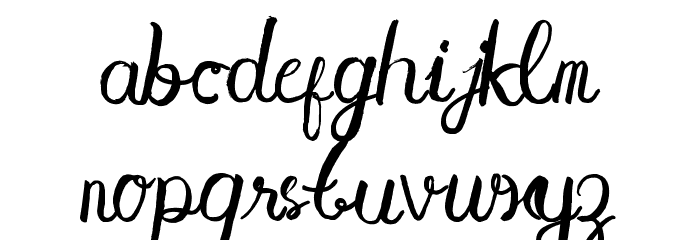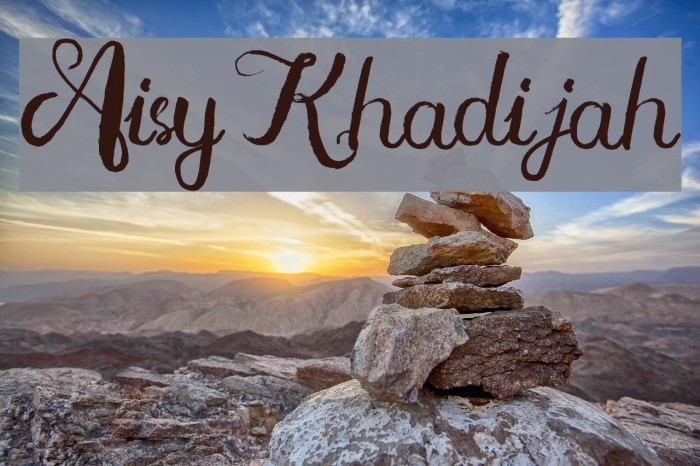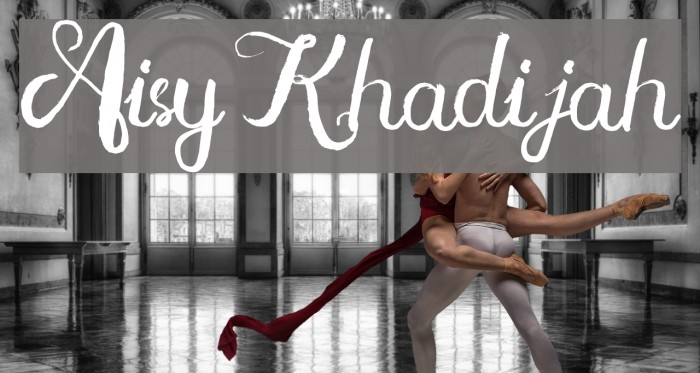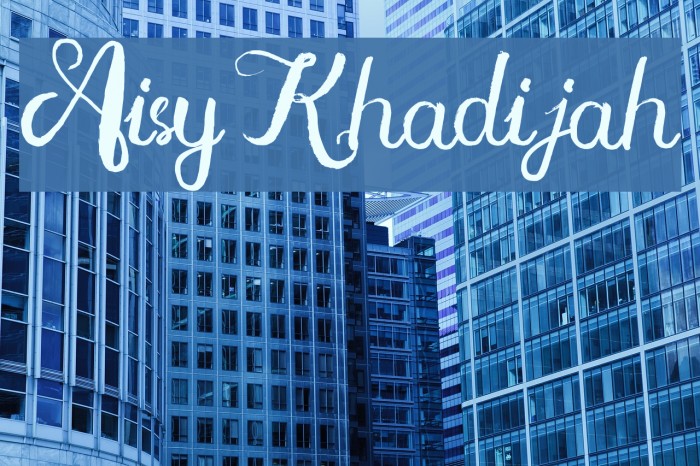
Aisy Khadijah Font
This font features an elegant and flowing script style, characterized by its cursive and interconnected letterforms. The uppercase letters are ornate, with flourishes that add a touch of sophistication. The lowercase letters maintain a consistent flow, enhancing readability while retaining an artistic flair. The numerals are bold and clear, complementing the overall design. Special characters are creatively integrated, maintaining the font's cohesive style. This font exudes a sense of elegance and creativity, making it suitable for a variety of design applications.
An elegant, flowing script font with ornate uppercase and connected lowercase letters.
- Proposed Projects: Ideal for wedding invitations, greeting cards, branding, and elegant logo designs.
- Overall Style: Elegant, Artistic
- Use Case: Logos, Invitations, Decorative text